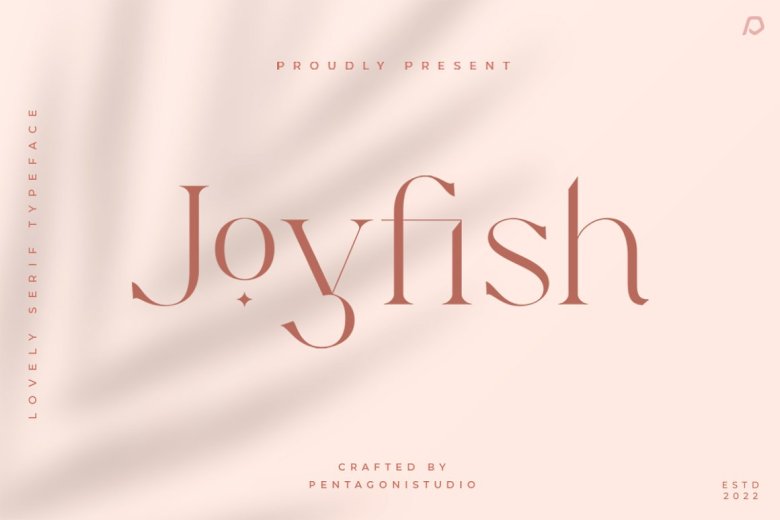
Joyfish Font
Joyfish is a beautiful, elegant serif font designed for the luxury and of a feminine feel. This font is ideal for identity design, symbol, web designs, promotion, labels, protector mark, greeting, letterhead, tee, graphic, flyer, canvas and so many other things.
Joyfish Serif Font